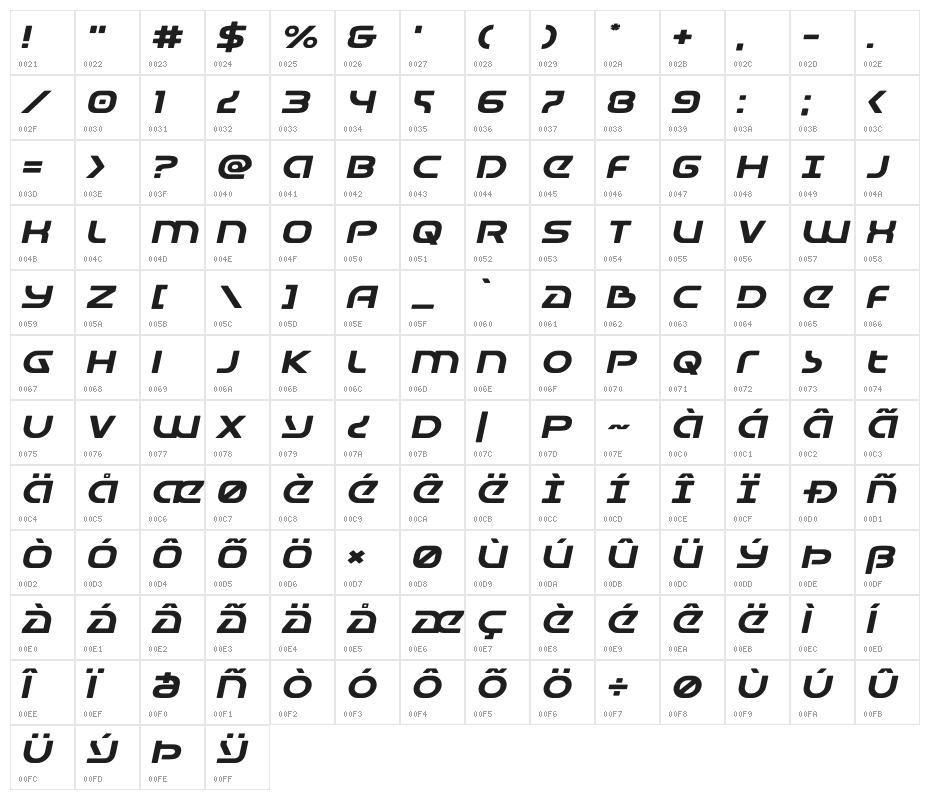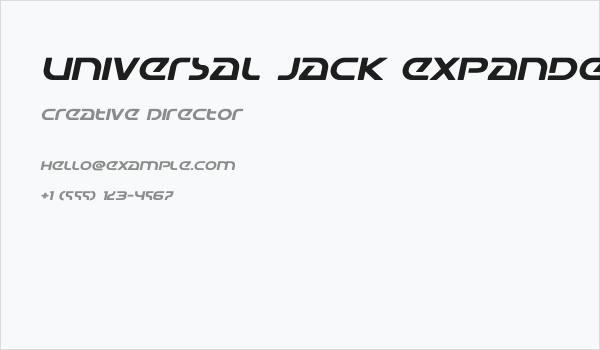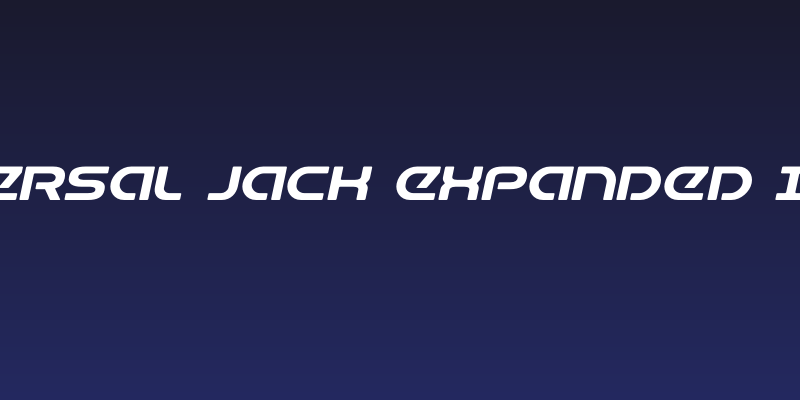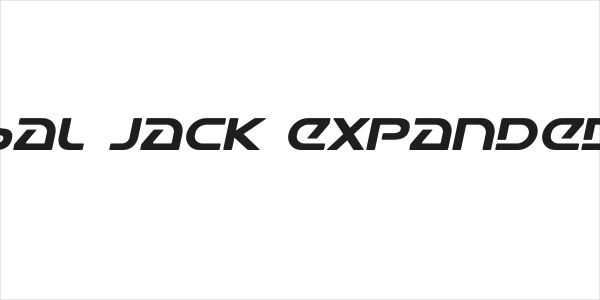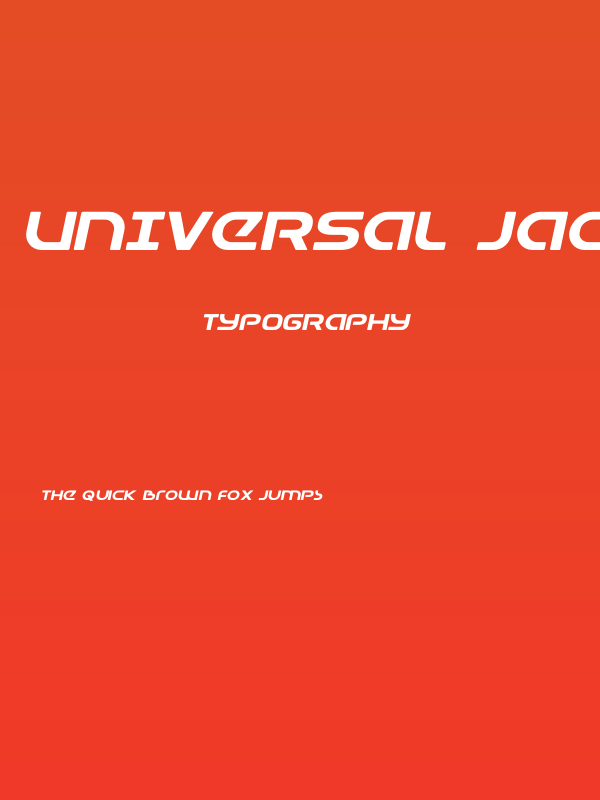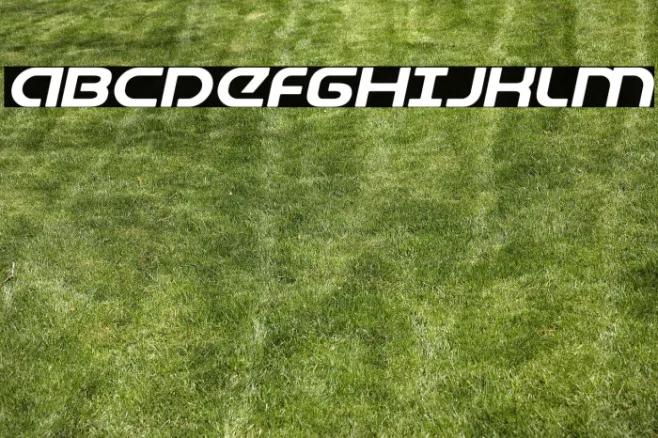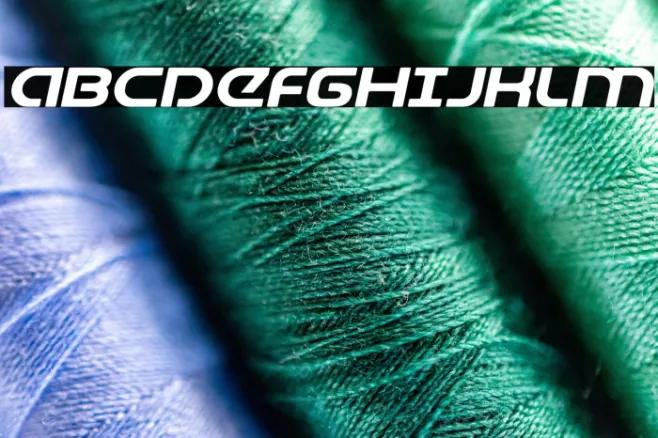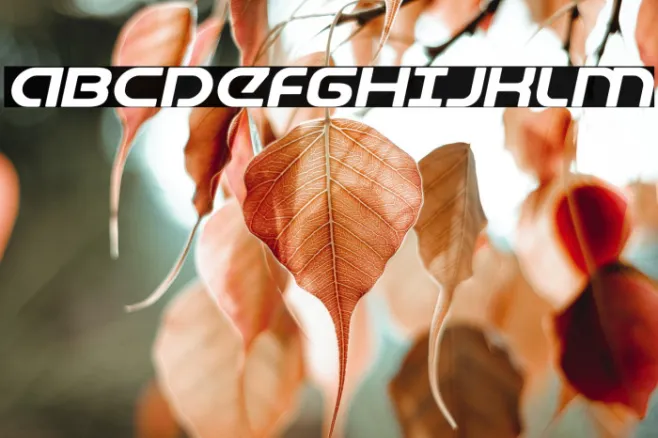
Universal Jack Expanded Italic Font
Universal Jack Expanded Italic Description
This font features a bold and dynamic style with an italicized slant, giving it a sense of motion and energy. The characters are expanded, providing a wide and open appearance that enhances readability. The design incorporates smooth curves and sharp angles, creating a futuristic and modern aesthetic. The uppercase and lowercase letters maintain a consistent style, while the numerals and special characters complement the overall look. This font is ideal for projects that require a strong visual impact and a contemporary feel.
| Proposed Projects | Ideal for branding, advertising, sports team logos, and futuristic design projects. |